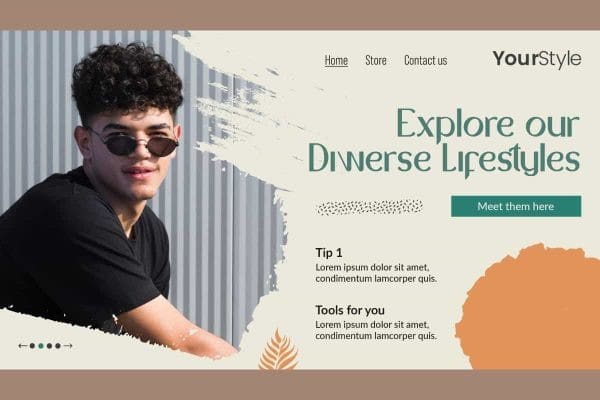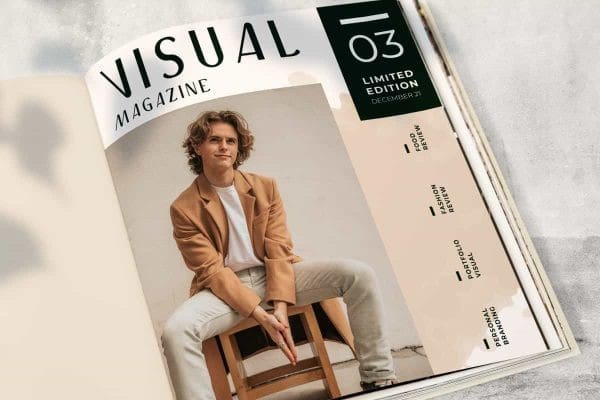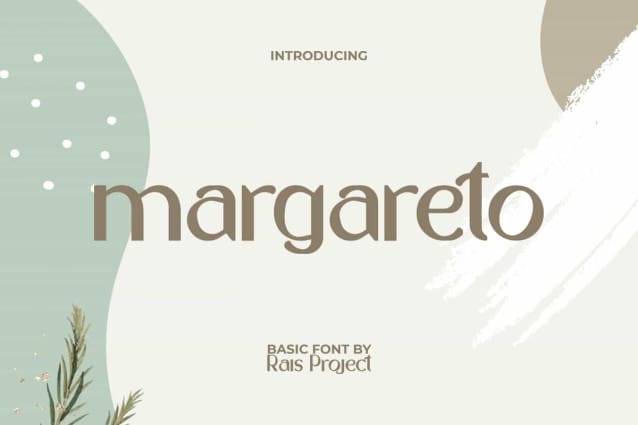
Margareto Font
Margareto Font is a stylish beautiful sophisticated sans serif display font by RaisProject. This font has a unique line shape and will not be boring to use in any of your designs. It will be good for any designs, such as advertisement, brand image, business card, cover, custom design, flyer, invitation, label, menu, poster, product packaging, quote, signage, website page, and more!
Margareto Font includes a full set of Uppercase and Lowercase Letters, Numerals, and large range of Punctuation. This modern font will be suitable for various industries, such as accessories, advertising, cafe, crafting, event or festival, fashion, florist, marketing, movie, printing, publishing, restaurant, etc.